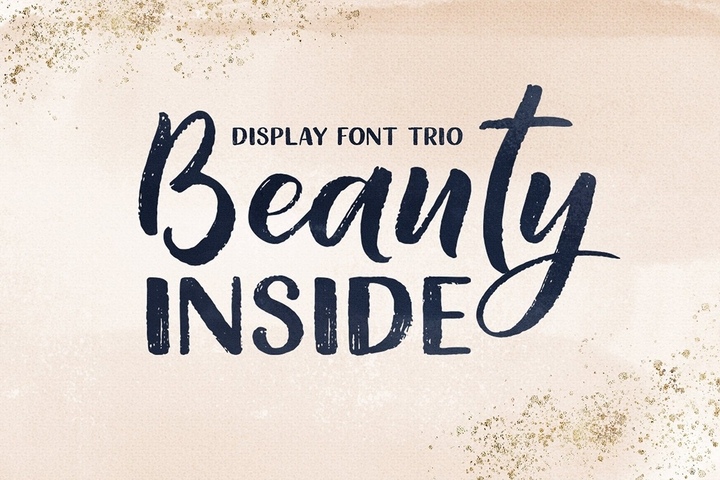
Beauty Inside Font Trio
The Beauty Inside Font Trio is a charming and versatile collection of three distinct yet complementary fonts: a lovely script, a classic serif, and a clean sans-serif. This carefully curated set is designed to work together seamlessly, making it an excellent choice for a wide variety of sophisticated design projects. Use it for creating cohesive brand identities, elegant wedding invitations, stylish social media graphics, and captivating blog headers. The trio’s versatility allows you to mix and match styles to create designs that are both harmonious and visually interesting.
What makes the Beauty Inside Font Trio so exciting is its all-in-one solution for beautiful typography. Instead of hunting for fonts that pair well together, this trio gives you everything you need to create a professional and polished look right out of the box. The contrast between the graceful script, the timeless serif, and the modern sans-serif provides incredible design flexibility, allowing you to establish a strong visual hierarchy and add depth to your projects. This trio is a complete toolkit for any designer who wants to create elegant and thoughtful compositions with ease.
The Beauty Inside font family is designed for maximum versatility. The script font includes a full set of ligatures and stylistic alternates to give it an authentic, handwritten feel, while the serif and sans-serif fonts are highly readable and perfect for both headlines and body text. This comprehensive collection includes uppercase and lowercase letters, numbers, and punctuation across all three fonts, ensuring you have everything you need to create a complete and cohesive design.